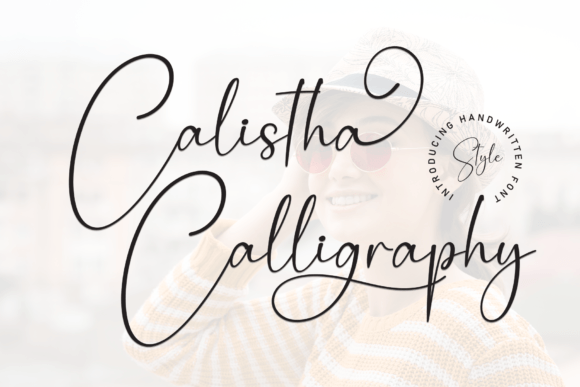
The Art of Beautiful Typography: Discovering Calistha Calligraphy Font
Have you ever stared at a blank page, your mind buzzing with creative ideas, but struggling to bring them to life? We’ve all been there – searching for the perfect font to match our vision. For designers and crafty enthusiasts, finding that special something can be a game-changer. That’s where Calistha Calligraphy Font comes in – a magical script font designed to elevate your creative projects and make them truly unforgettable.
With its elegant touch and versatility, Calistha Calligraphy Font is perfect for designers looking to add a touch of sophistication to their work. Whether you’re creating social media graphics, crafting DIY projects, or simply experimenting with new typography, this font will help you turn your ideas into stunning pieces of art. Its value lies in its ability to add a personal touch to any project, making it a must-have for any creative enthusiast.
Calistha Calligraphy Font Features
- Font Family: Calistha Calligraphy, a beautiful and elegant script font.
- Unique Characteristics: Features a flowing, handwritten style with subtle flourishes and ligatures, adding a touch of sophistication to any design.
Designer Review: Calistha Calligraphy Font
As a designer, I was excited to dive into the world of Calistha Calligraphy Font. And overall, I’m impressed with its elegant, handwritten feel. ✨ The subtle flair at the ends of letters adds a nice touch of sophistication, making it perfect for invitations, wedding stationery, and other special occasions.
The font is highly customizable, offering a wide range of options to suit your design needs. You can adjust the letter spacing, line height, and even the way the letters connect. ✨ This level of control is a huge plus for designers who value precision and flexibility.
- Elegant, handwritten feel ✨
- Highly customizable options ✨
- Perfect for invitations, wedding stationery, and other special occasions
- ⚠️ Limited font size options, which can make it difficult to use in smaller text
- ⚠️ Some letters may require manual tweaking to achieve the desired look
- ⚠️ Not ideal for large blocks of text due to its handwritten nature
Overall, I think Calistha Calligraphy Font is a solid choice for designers looking for a elegant, handwritten font. While it may have some limitations, its customization options and unique feel make it a valuable addition to any design toolkit.
Getting the Most Out of Calistha Calligraphy Font
For the best results, use Calistha Calligraphy Font in designs that require a touch of elegance and sophistication. It pairs well with watercolor backgrounds, floral patterns, and minimalist designs. Experiment with different font sizes, colors, and combinations to achieve the desired effect.
Calistha Calligraphy Font is ideal for:
- Birth announcements and baby shower invitations
- Anniversary and birthday cards
- Branding and marketing materials for creative businesses
Alternatives to Calistha Calligraphy Font
Great Vibes is a beautiful, elegant script font perfect for creating a romantic or vintage atmosphere. It’s ideal for wedding invitations, greeting cards, or any design that requires a touch of sophistication.
Great Vibes is similar to Calistha Calligraphy Font in its flowing, cursive style, but it has a more refined and polished look. While Calistha Calligraphy Font has a more rustic feel, Great Vibes is more suitable for formal or high-end designs.
Carolyna Pro is a modern, elegant script font designed for fashion, beauty, and lifestyle brands. It’s perfect for creating eye-catching headlines, logos, or packaging that exude luxury and sophistication.